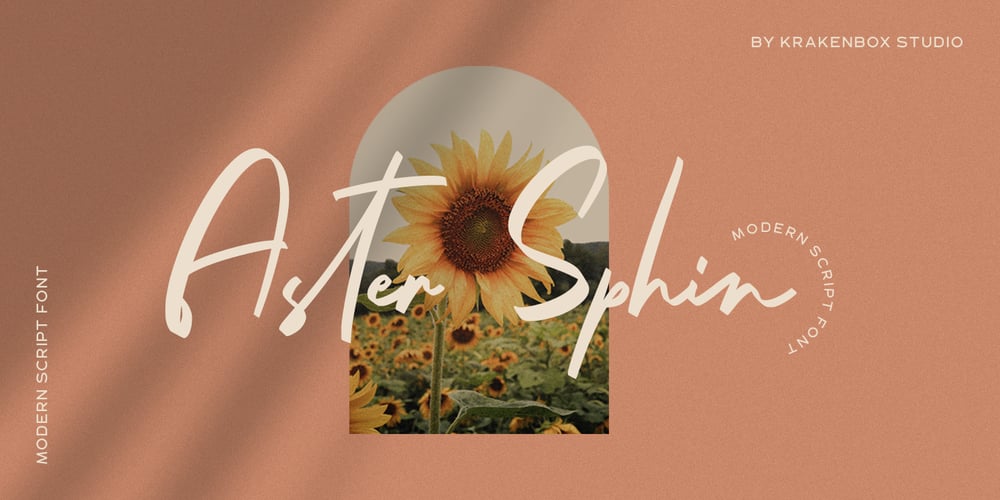
Aster Sphin Font Family was designed by Yahdi Kumala and published by Krakenbox Studio. Aster Sphin contains 1 styles and family package options. Aster Sphin is a fashionable sophisticated signature-style script with its own unique curves and an elegant inky flow. Its elegant, classy, and modern look. It looks stunning on wedding invitations, thank you cards, quotes, greeting cards, logos, business cards and every other design which needs a customized touch.